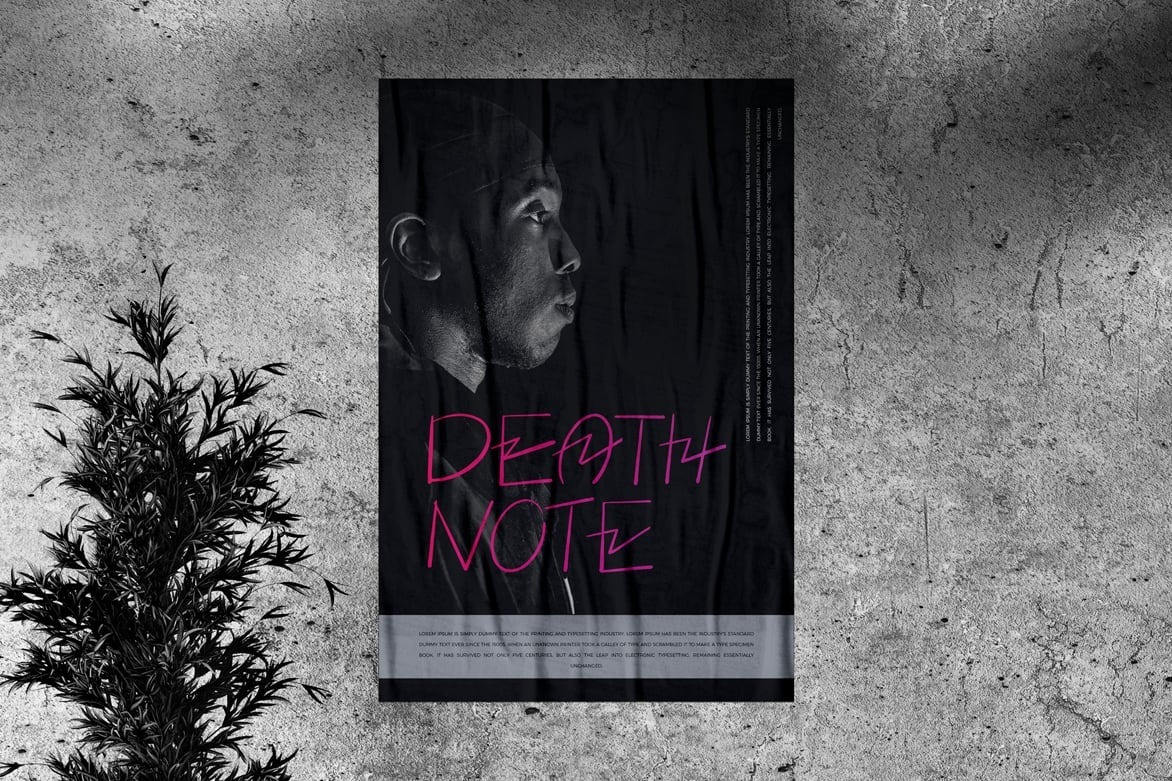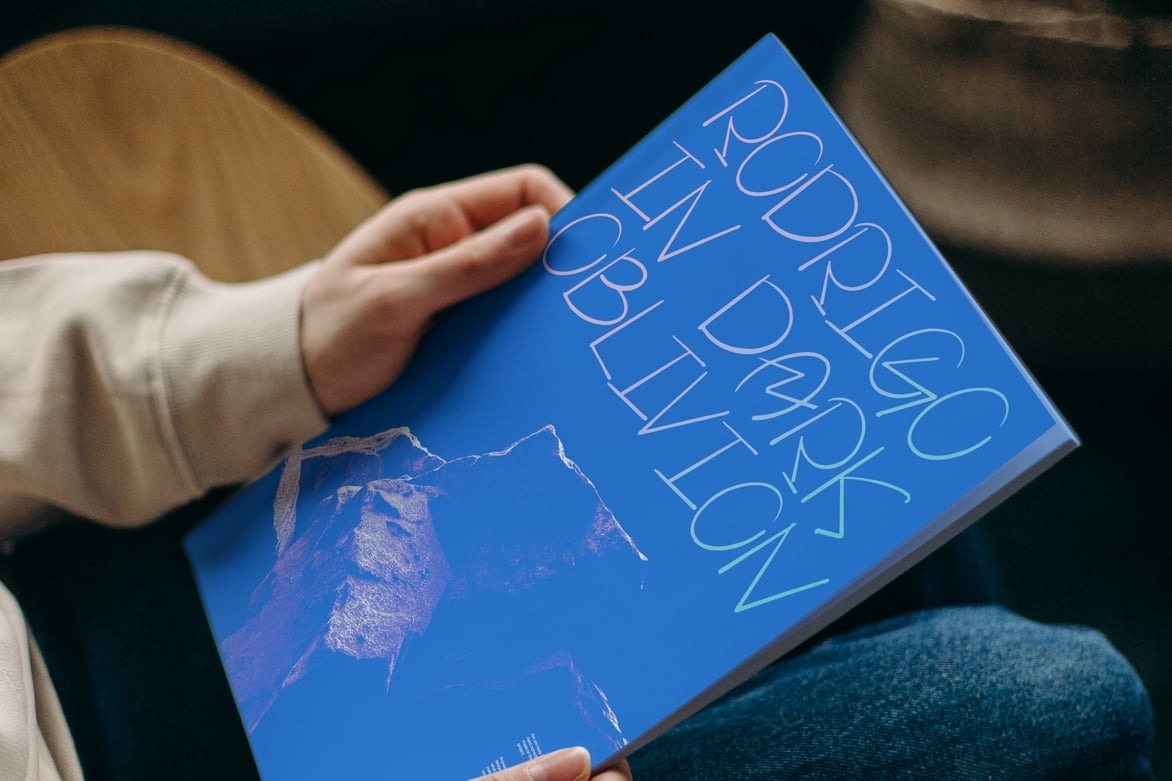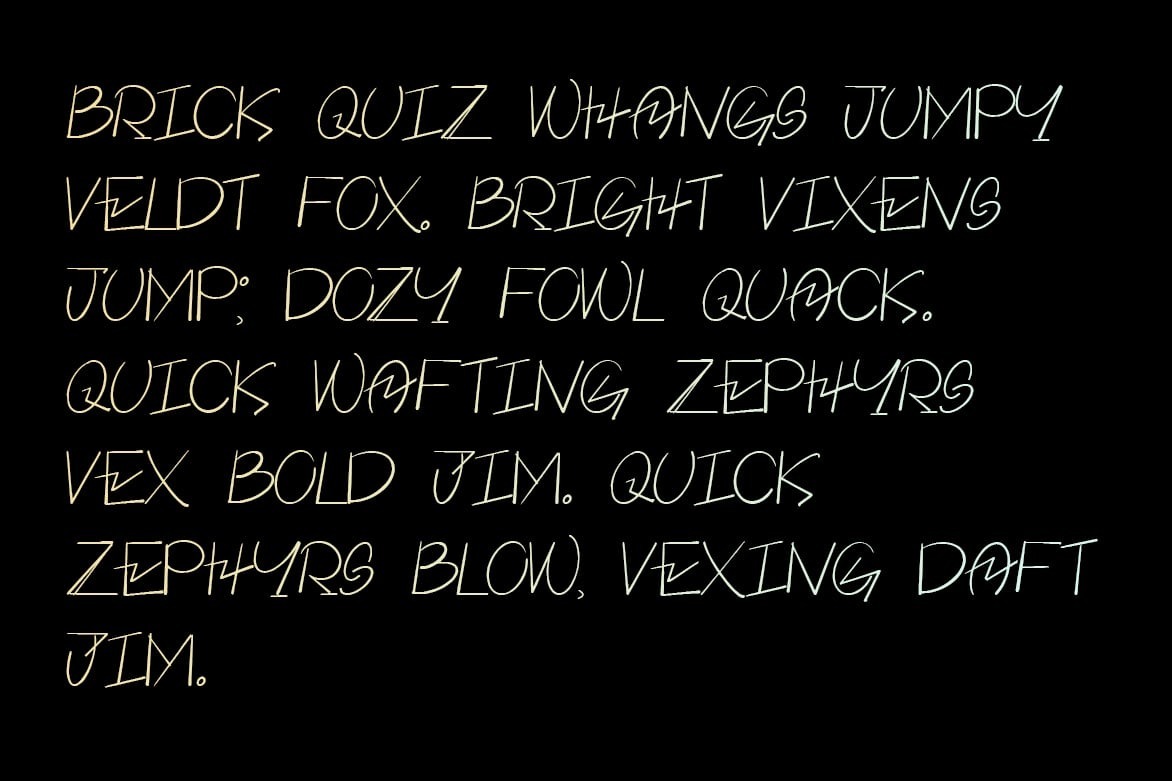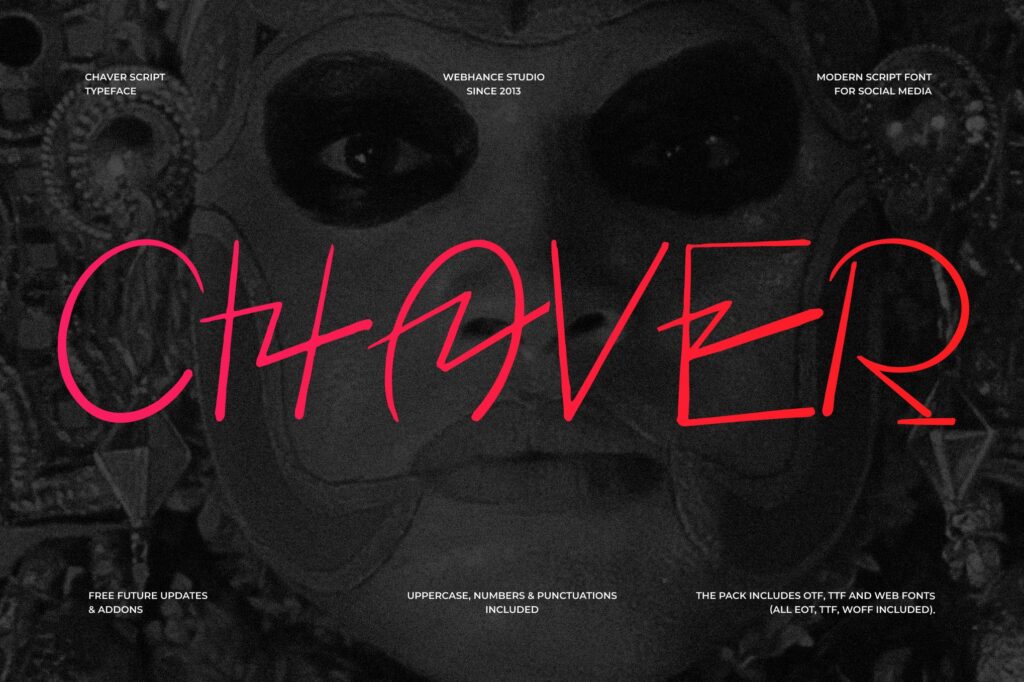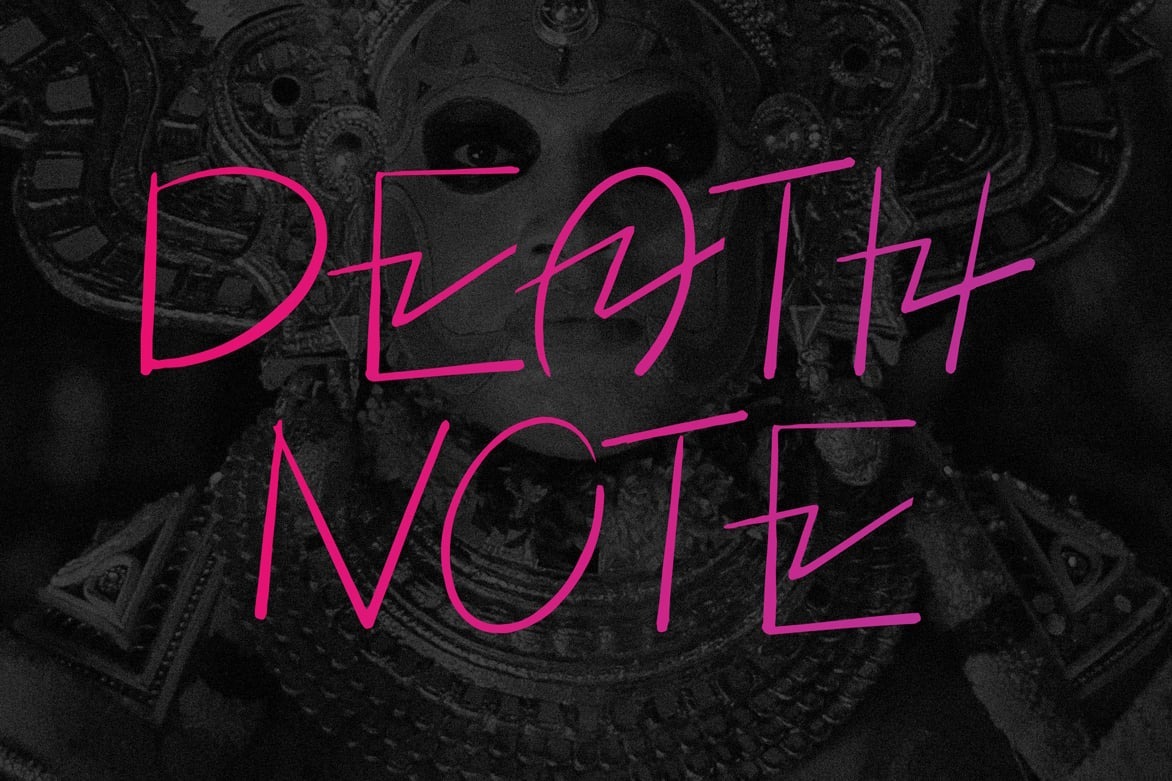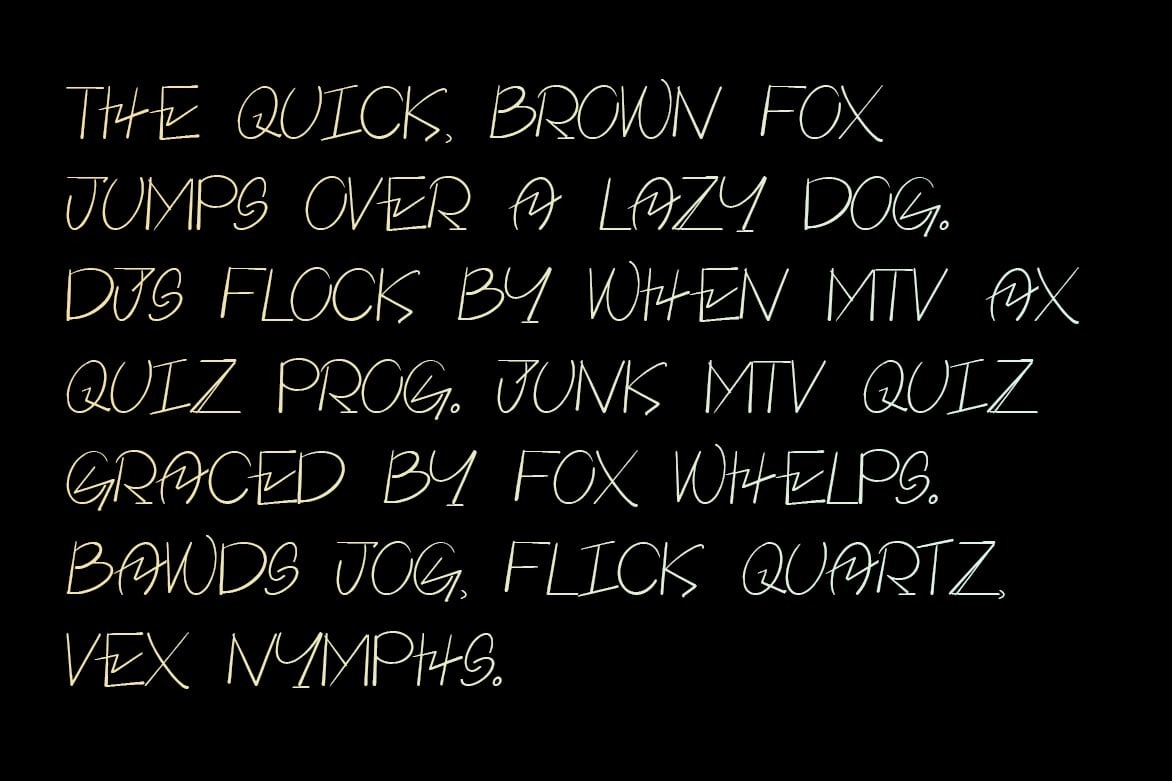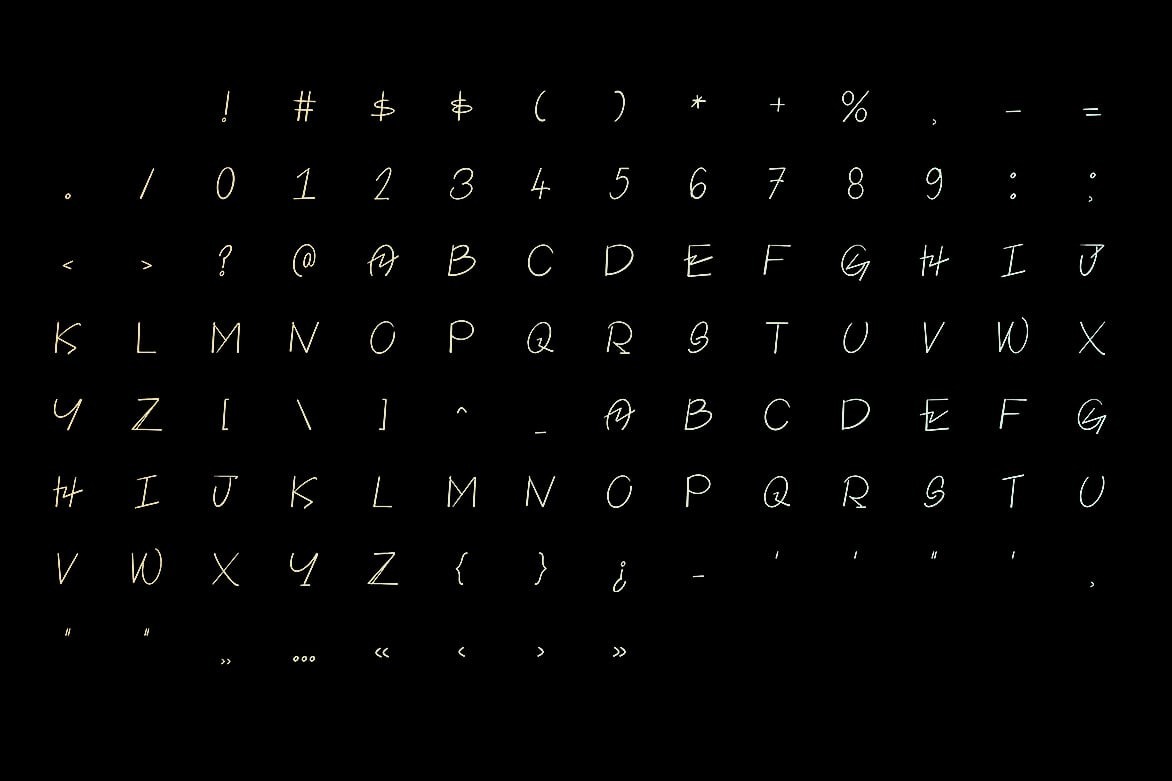
Chaver Handwritten Font
Chaver is a sleek and stylish modern handwritten typeface, designed to infuse sophistication and creativity into your projects. Whether you’re creating logos, branding materials, invitations, or other designs, Chaver’s natural and fluid handwritten style ensures your work stands out with uniqueness and charm. Its unique character and organic feel make it a versatile addition to your design toolkit.
Chaver is a sleek and stylish modern handwritten typeface, designed to infuse sophistication and creativity into your projects. Whether you're creating logos, branding materials, invitations, or other designs, Chaver's natural and fluid handwritten style ensures your work stands out with uniqueness and charm. Its unique character and organic feel make it a versatile addition to your design toolkit.